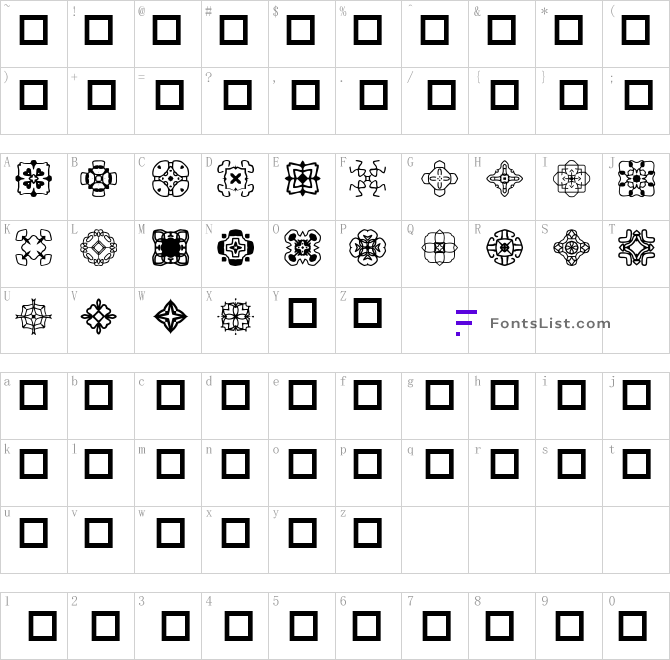
- Font Name:auntbats
auntbats-Normal.ttf is a very beautiful artistic font, auntbats-Normal.ttf is widely used in the design and printing of various books and pictures,auntbats-Normal.ttf has a strong visual impact,auntbats-Normal.ttf is a commonly used font in newspapers, magazines and books, and is used in posters, e-commerce Poster design, store design, logo design, font design and other fields.auntbats-Normal.